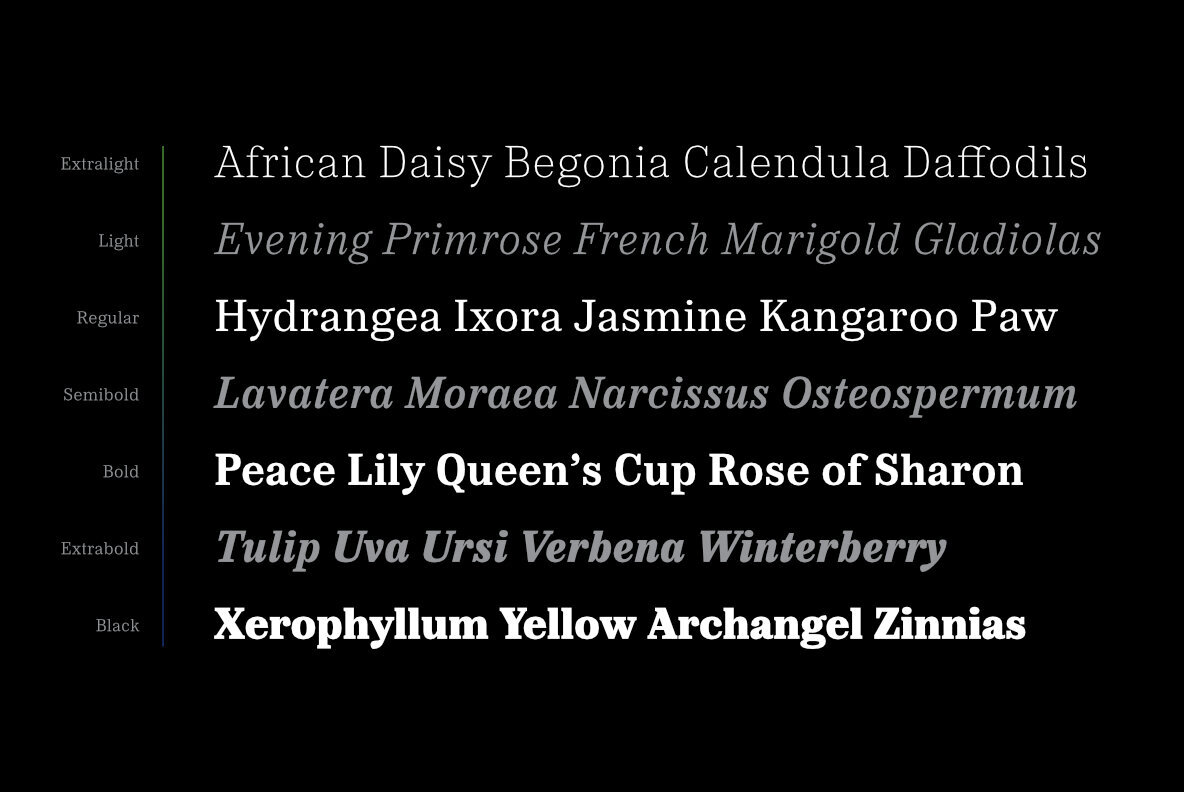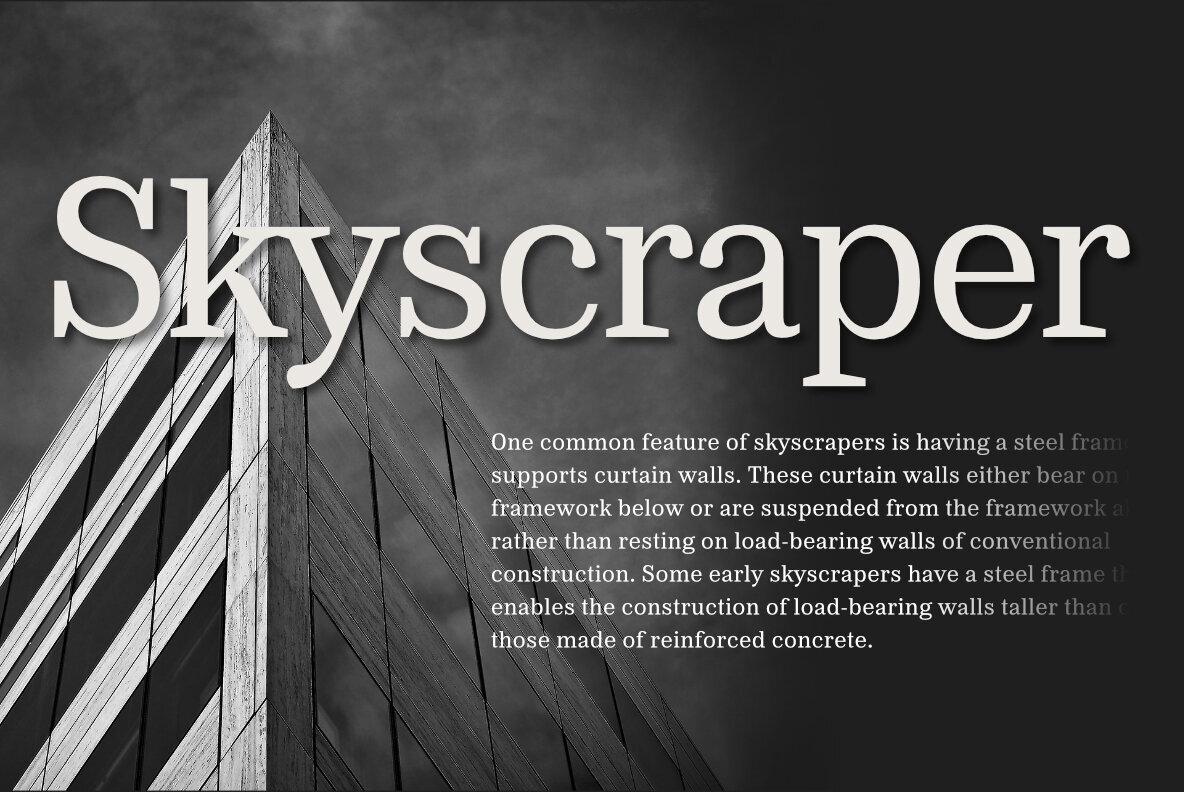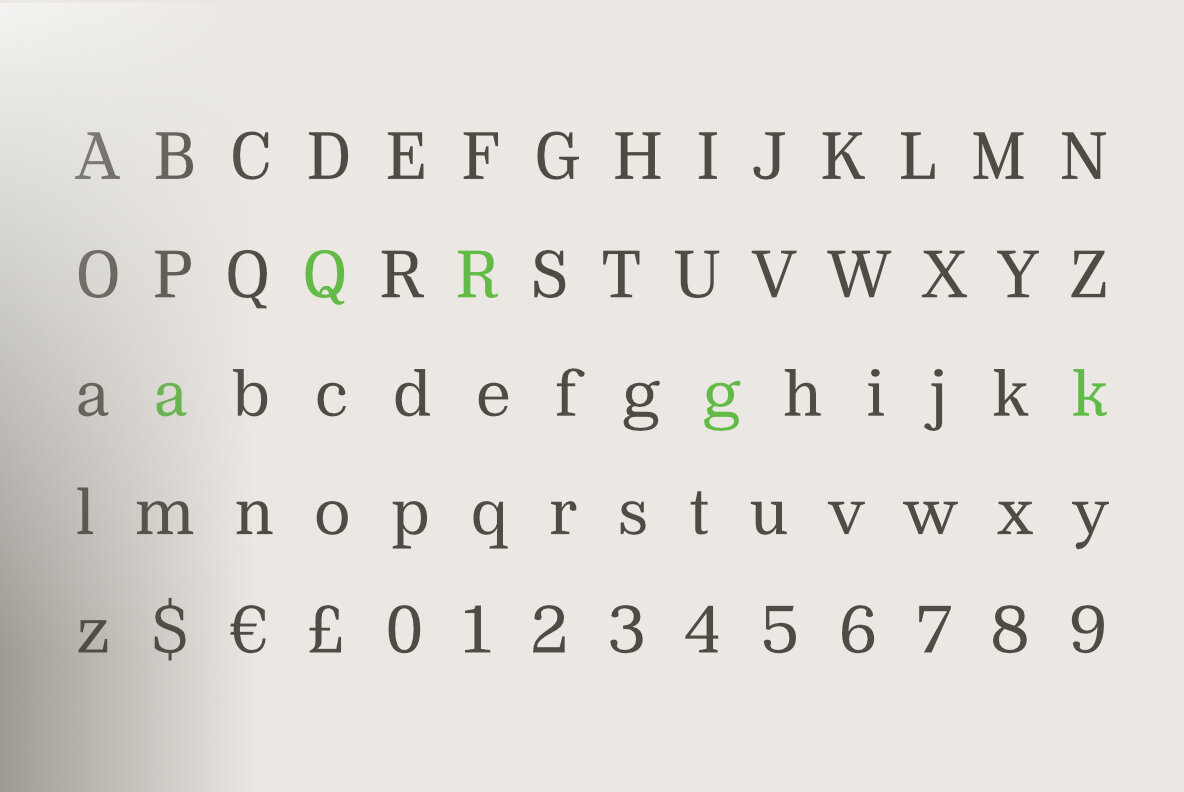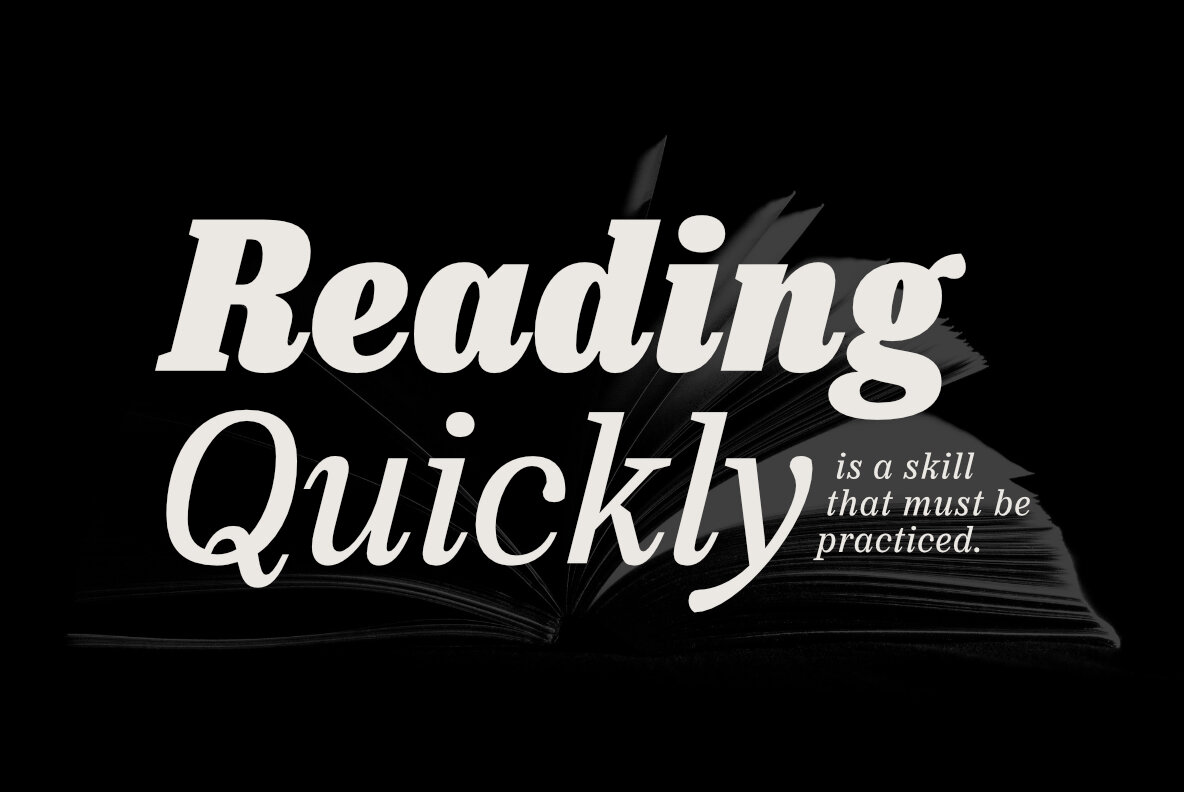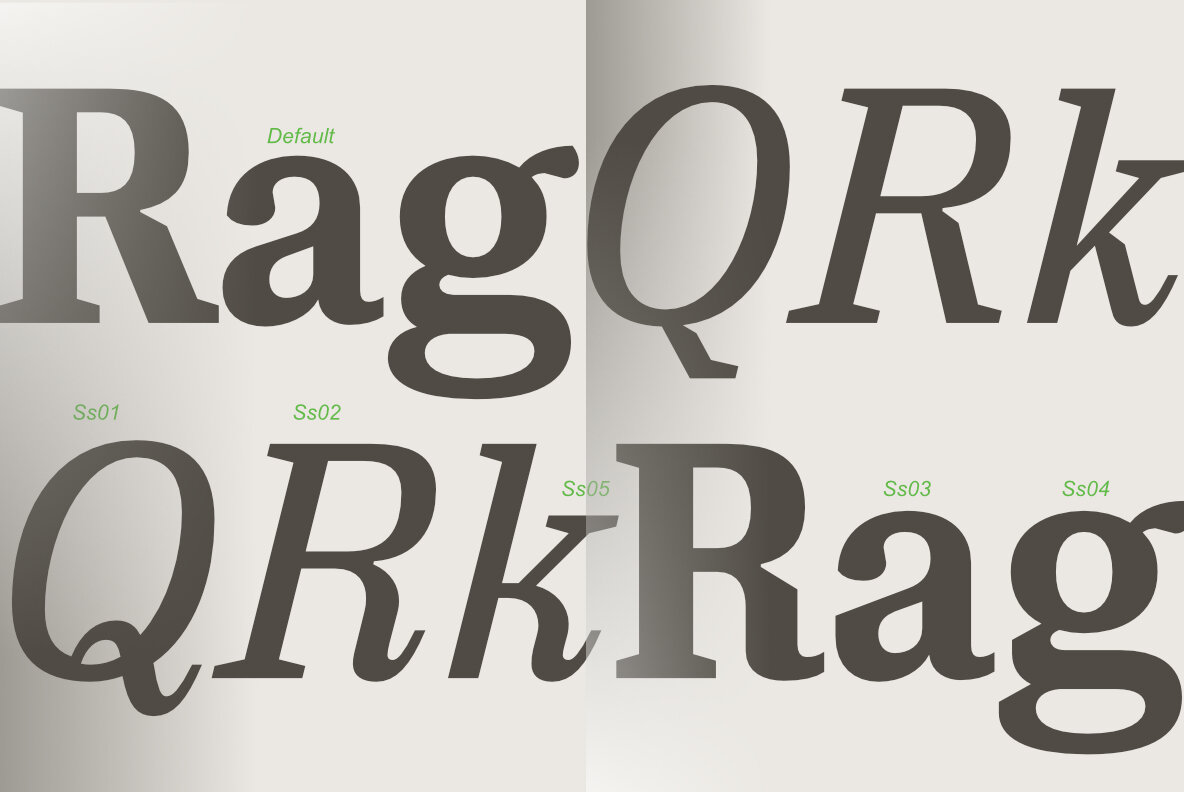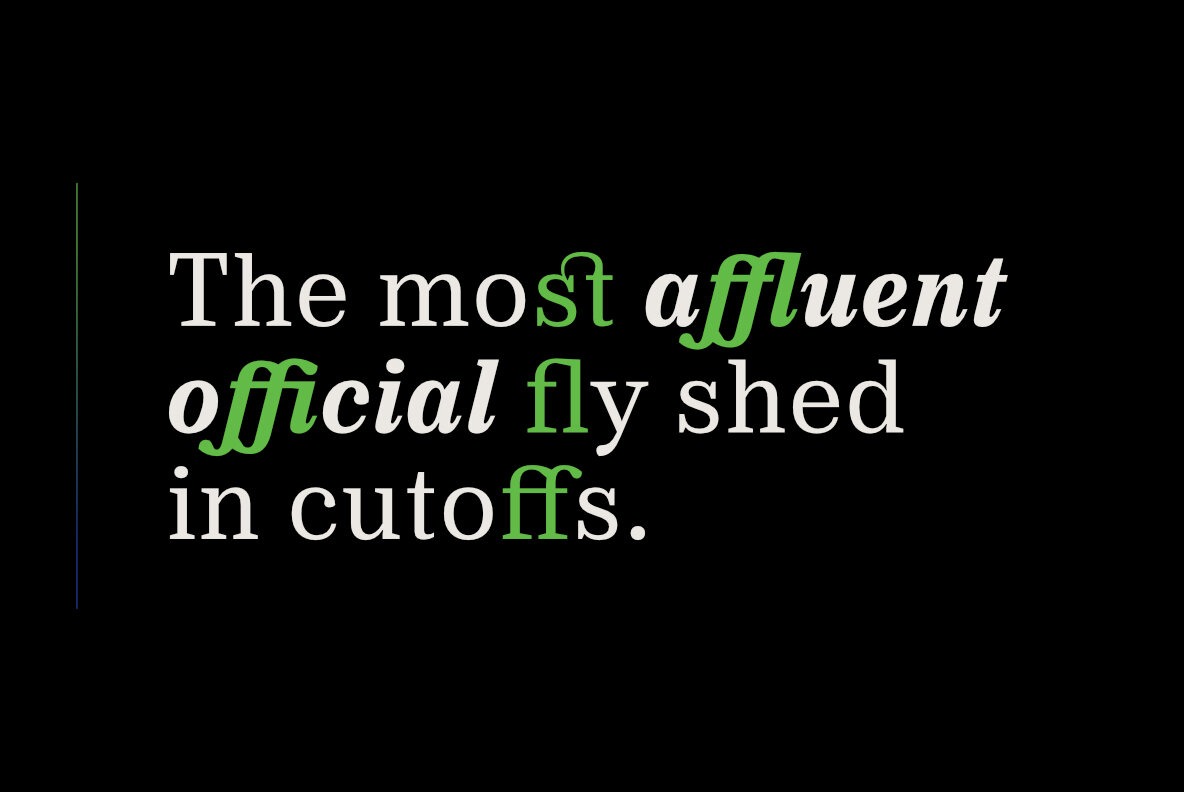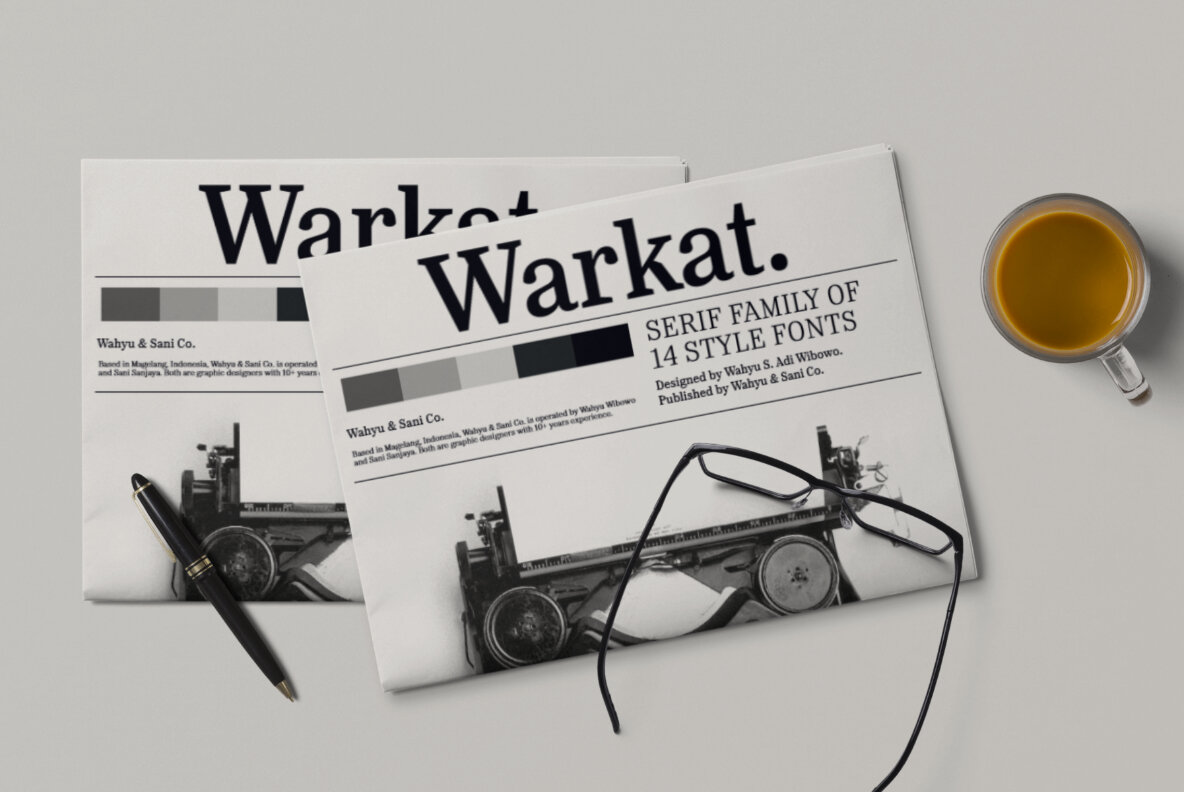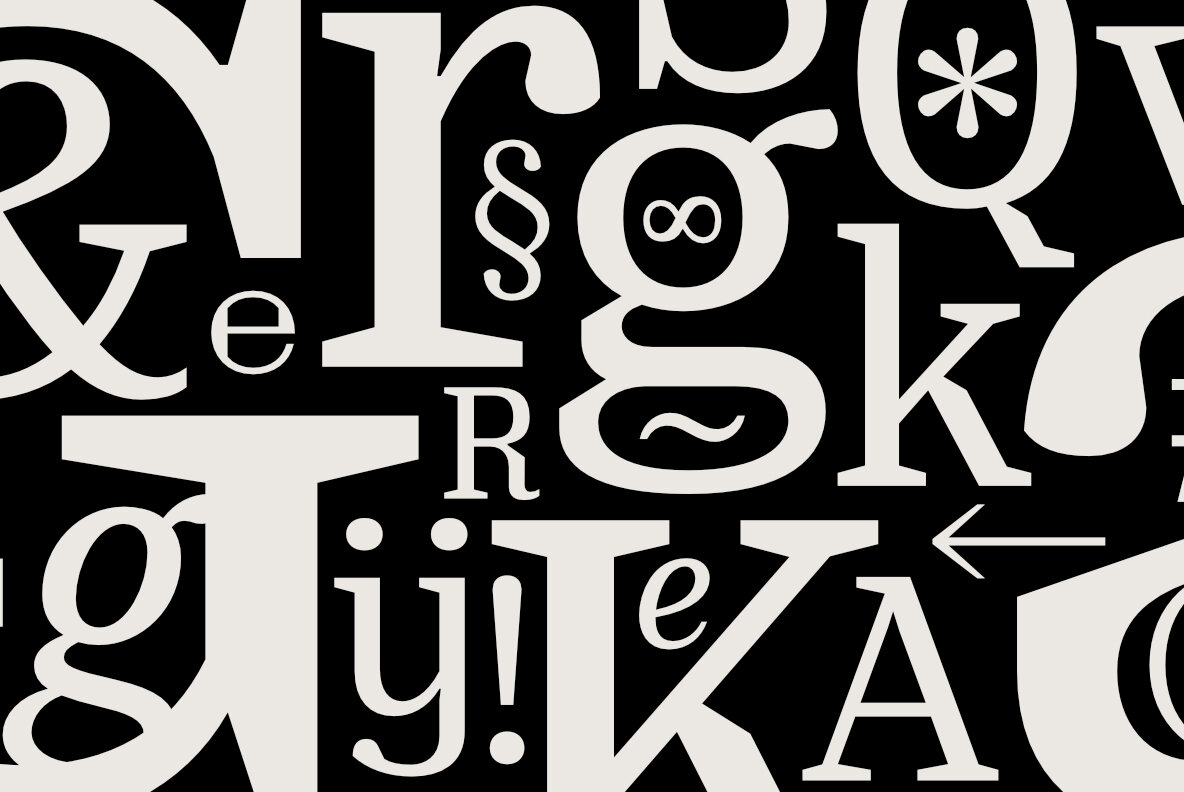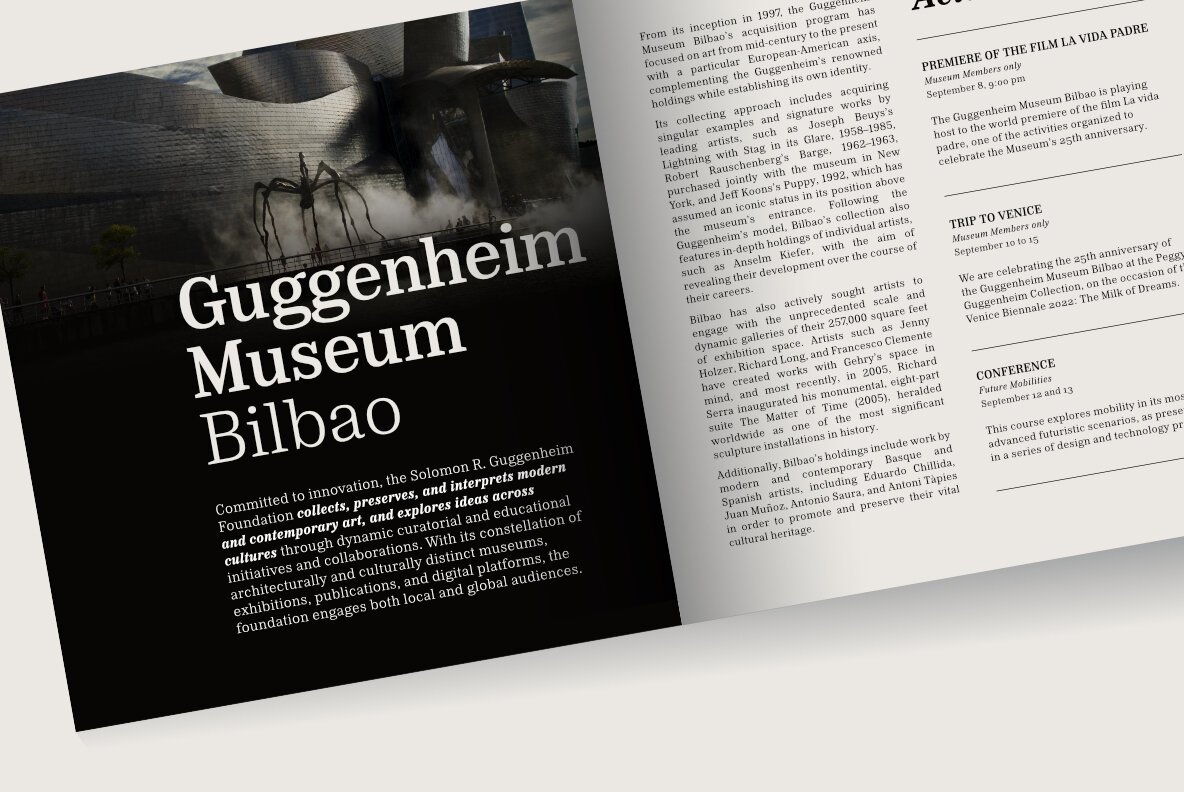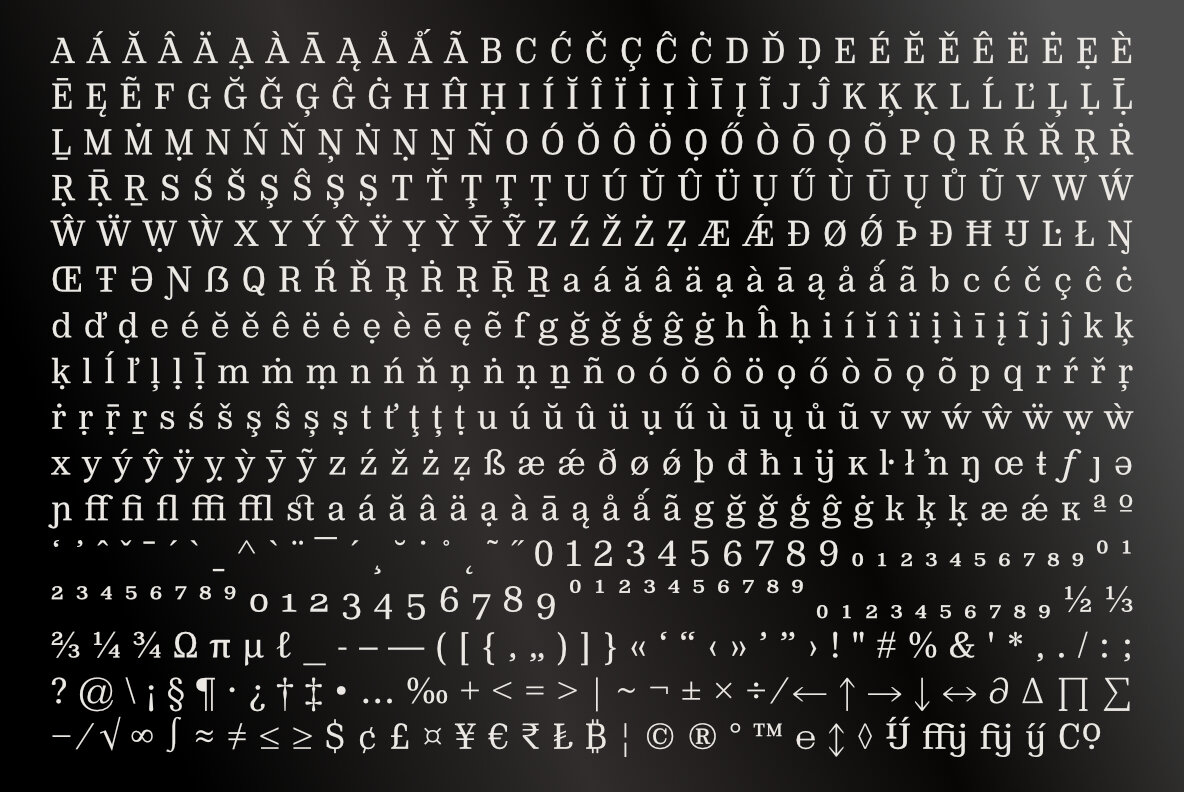
Warkat Font
Back in late 2019, Wahyu Wibowo designed a logotype for Wahyu and Sani Co., he decided to shorten the name to be WSCo. for the logo. Then by the end year of 2021, he got an idea to develop the typeface he did for the logo and start developing a font family which can be used for company branding. Now the typeface has come to life with the name "Warkat".
The font family comes in two styles, upright and italic. It has 14 styles in total and additional two variable fonts. Each font has more than 580 glyphs including the alternates which covers Western and Eastern Europe Latin based languages and equipped with functional OpenType features like standard and discretionary ligatures, various format for numbers, ordinal, etc.